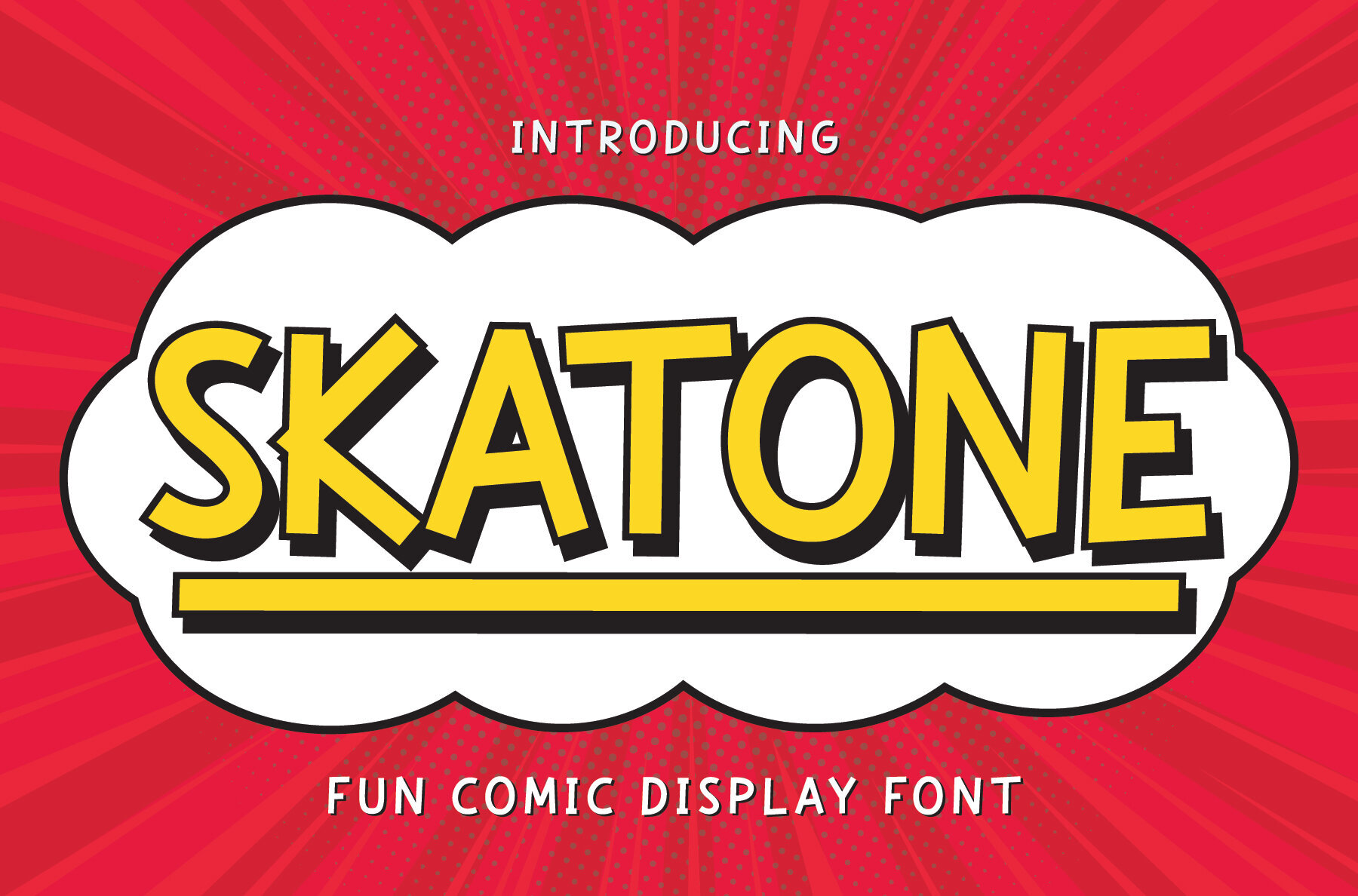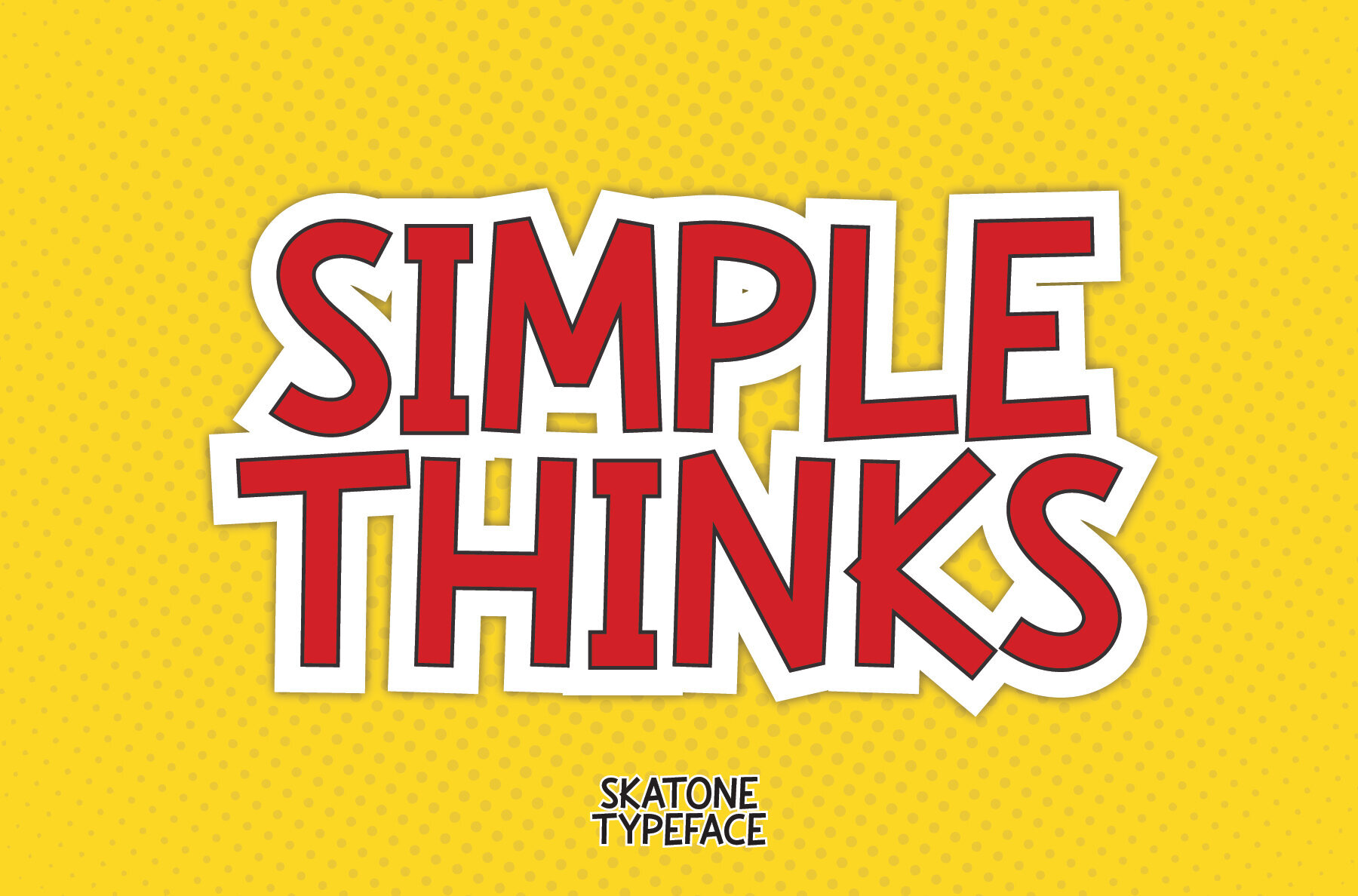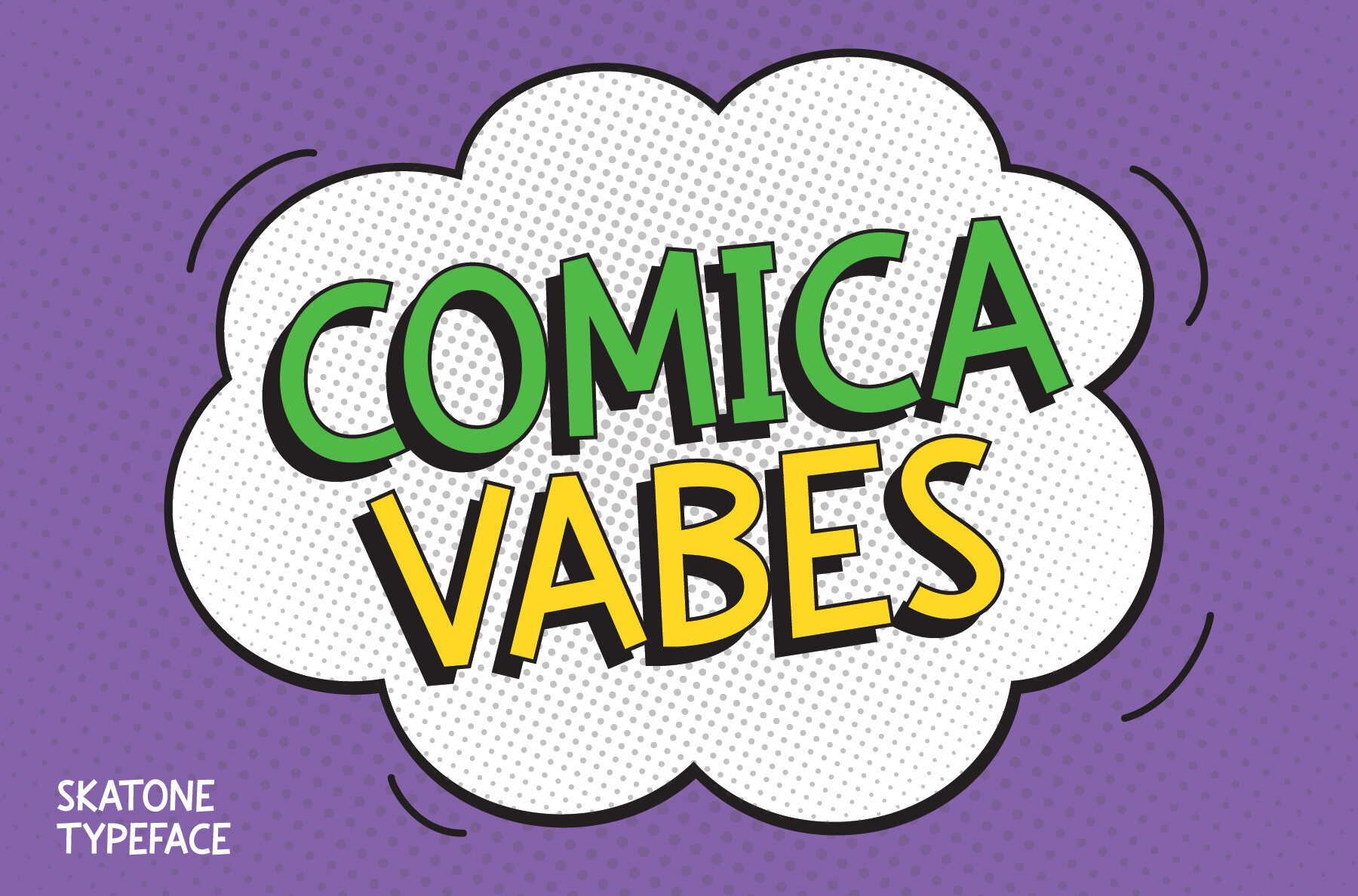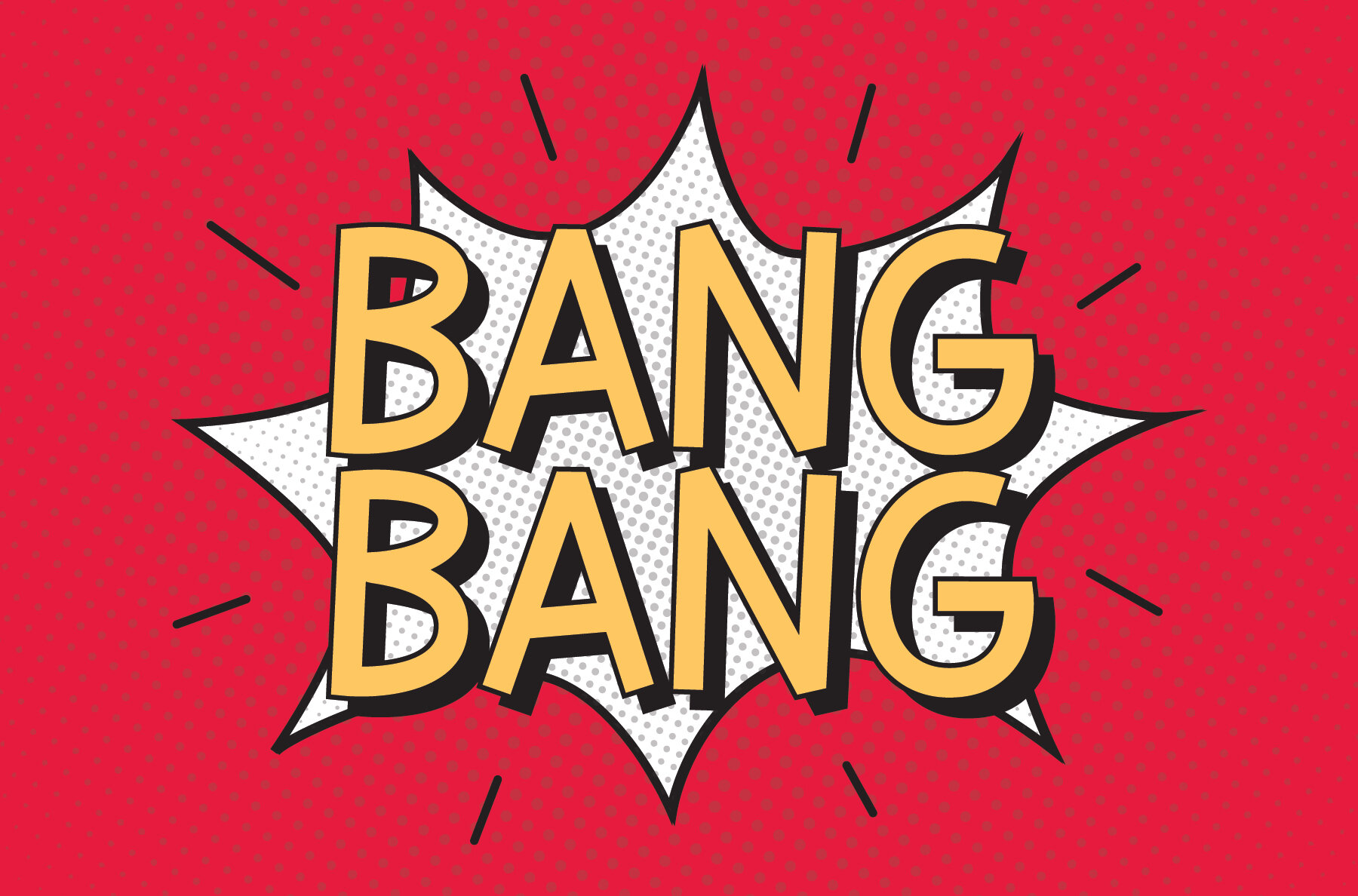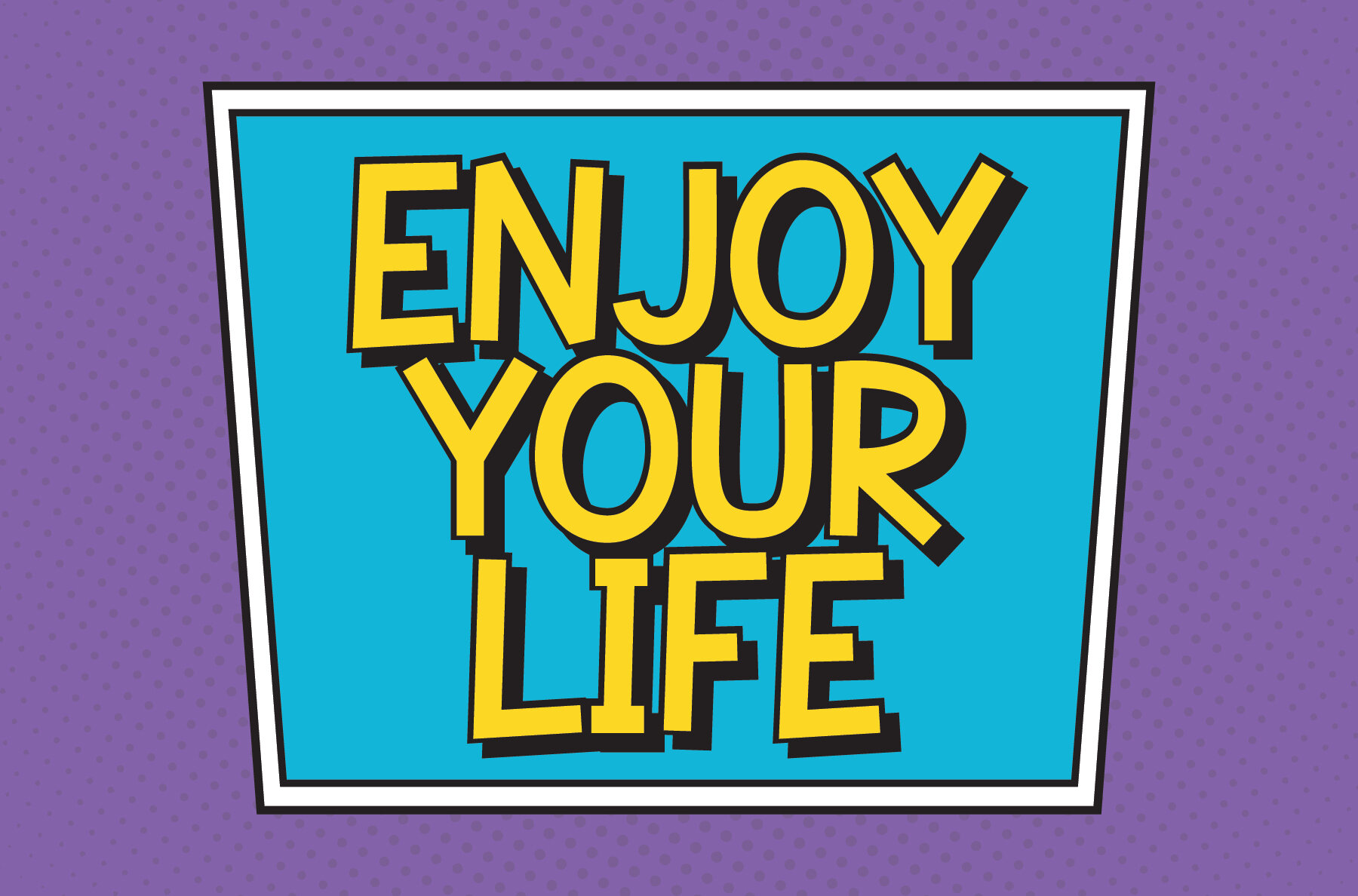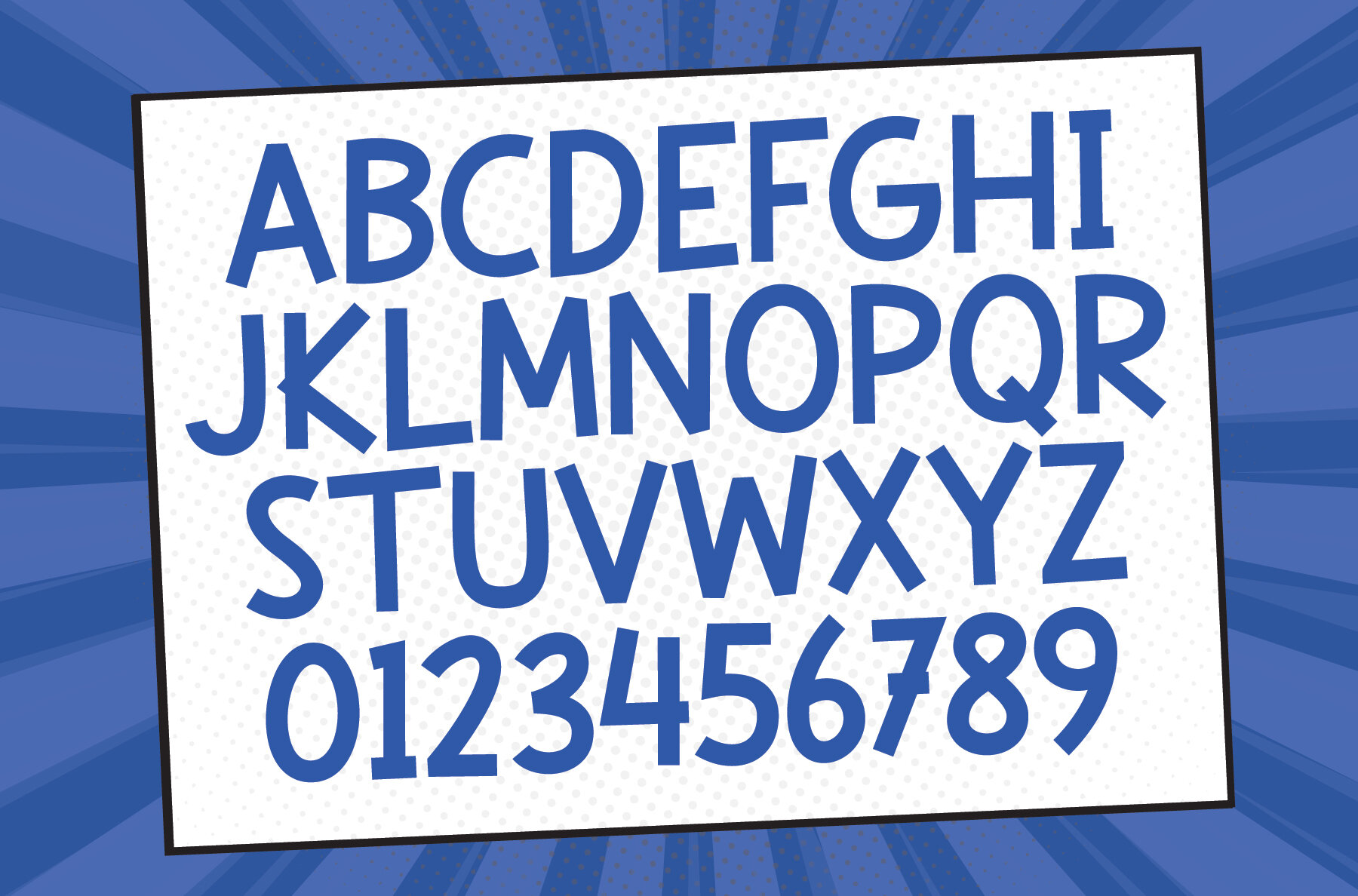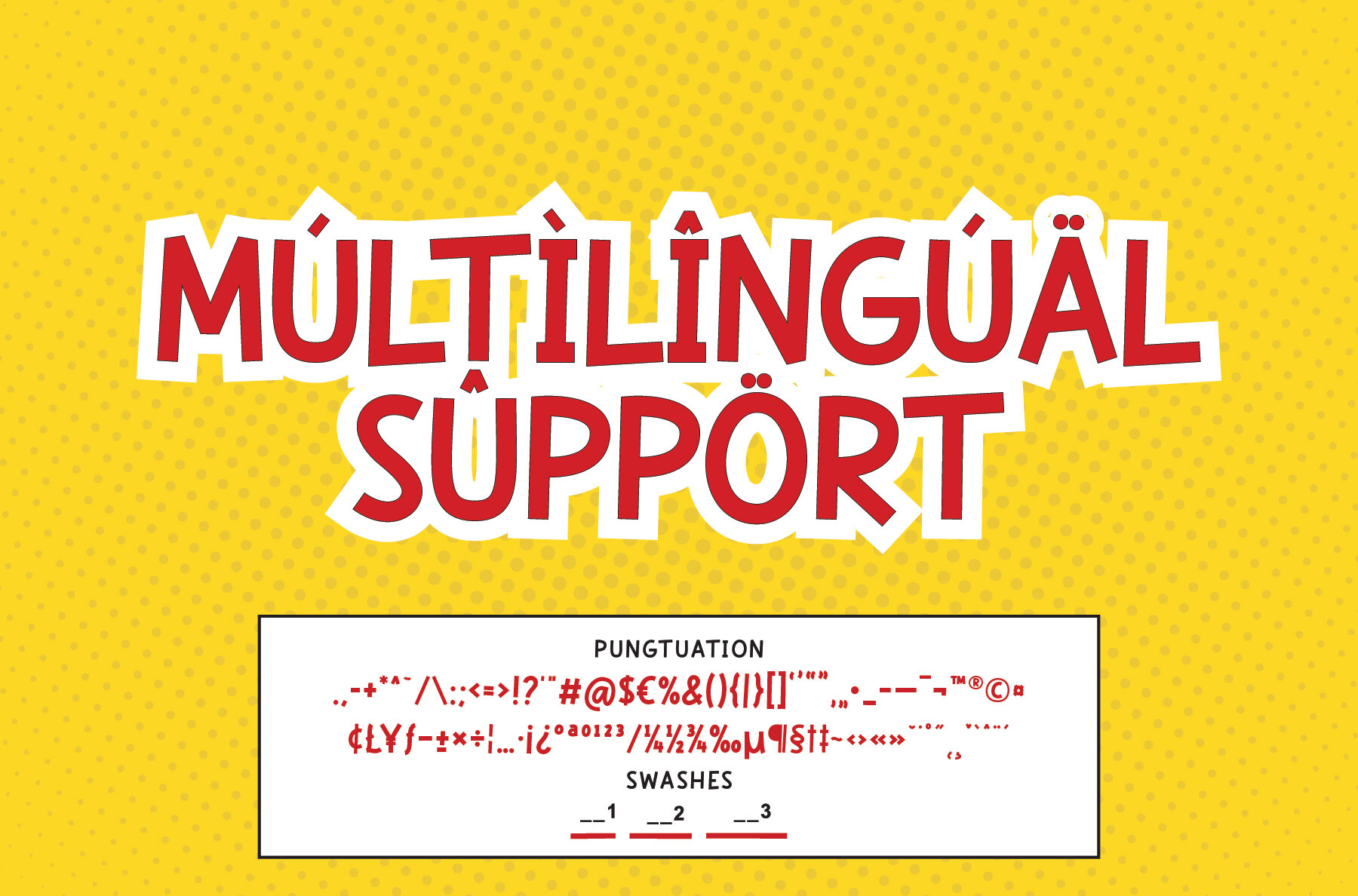
Skatone Font
Skatone
Skatone brings a playful and lively energy to your designs with its distinctive characters and vibrant style. Ideal for comic books, posters, and projects that demand a splash of imagination, this font infuses your text with excitement. It is perfect for visually engaging storytelling, radiating love and humor.Skatone: Vibrant Comic Display Font